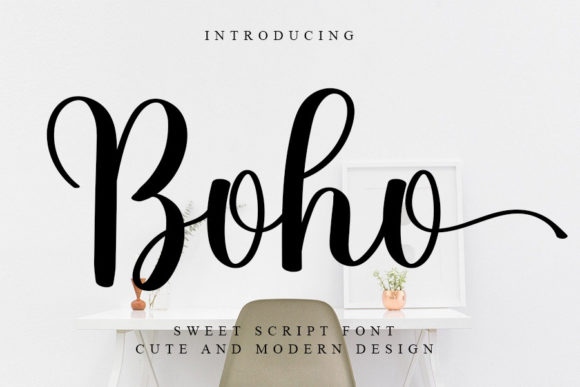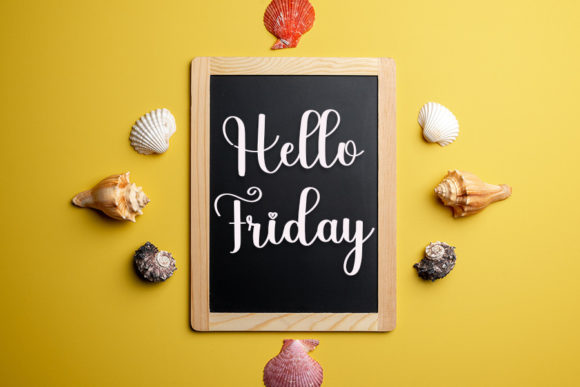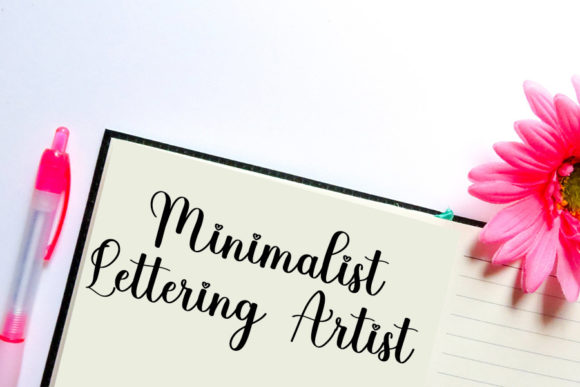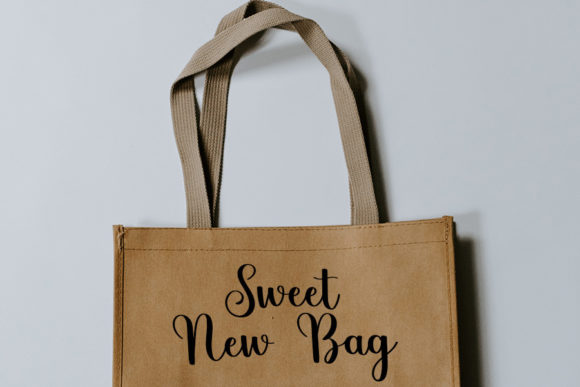
About Boho Font
Boho is a flowing and graceful script font. Fall for its ravishing style and use it to create gorgeous wedding invitations, beautiful stationary art, eye-catching social media posts, and much more!